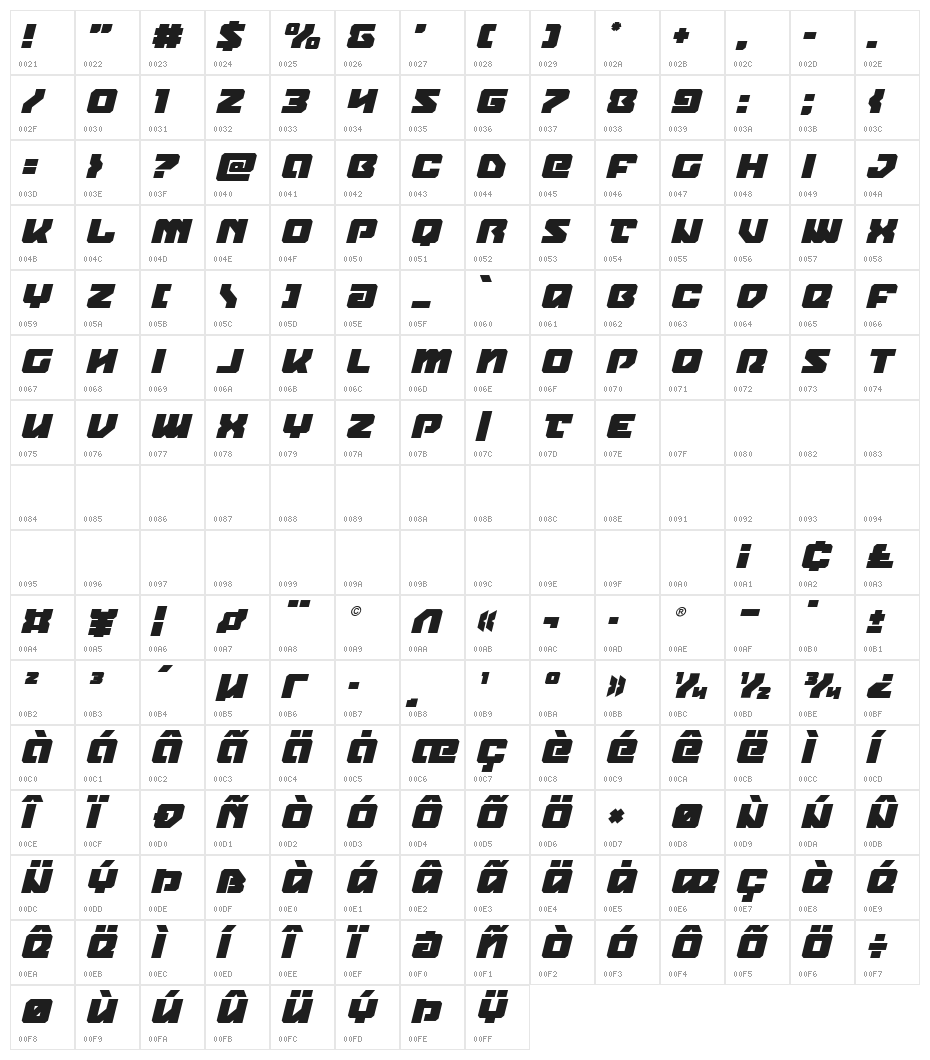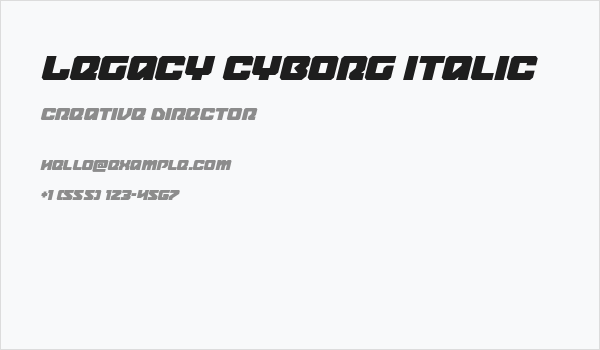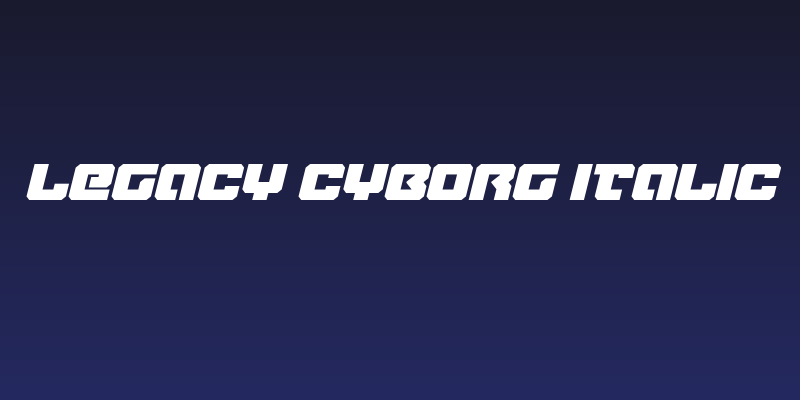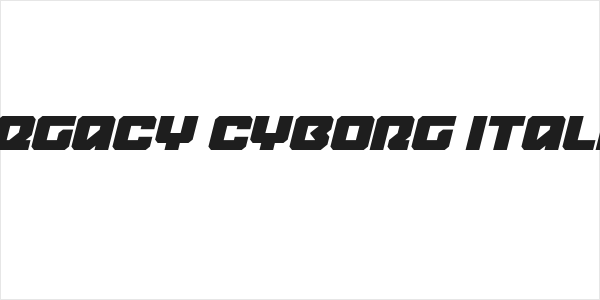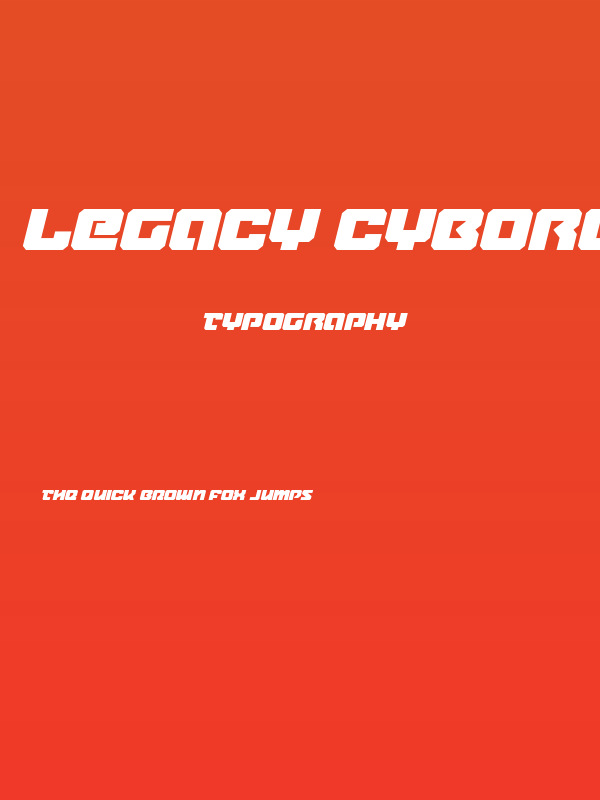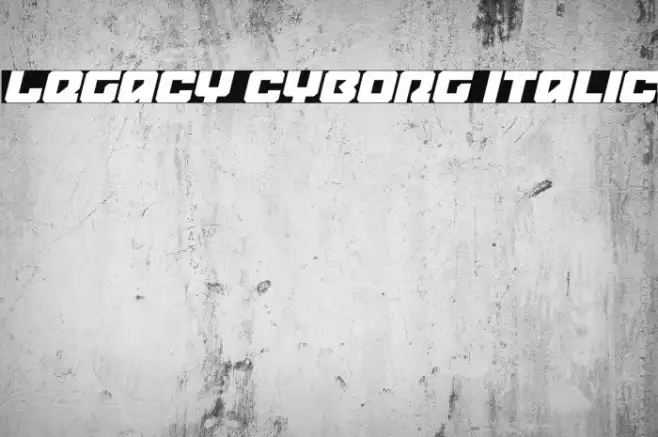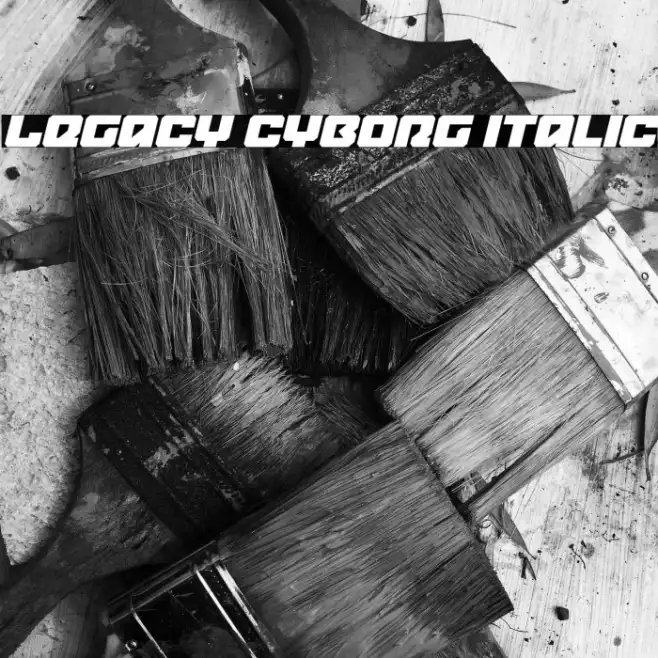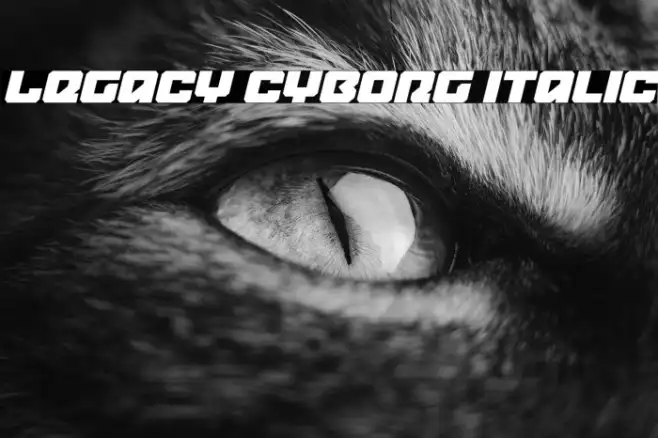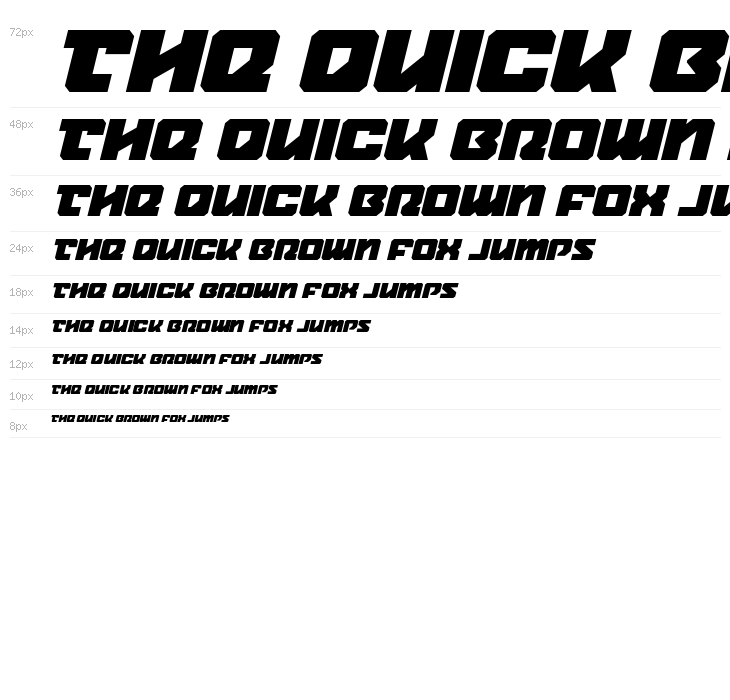
Legacy Cyborg Italic Font
Legacy Cyborg Italic Description
This font features a futuristic, angular design with a distinct italic slant, giving it a dynamic and forward-moving appearance. The characters are bold and geometric, with sharp edges and a consistent stroke width that conveys a sense of strength and modernity. The uppercase and lowercase letters maintain a uniform style, while the numbers and special characters integrate seamlessly into the overall design. The font's boldness and unique style make it stand out, suitable for projects that require a strong visual impact.
| Overall Style | Futuristic, Modern |
| Proposed Projects | Ideal for sci-fi themed designs, video game titles, tech branding, and futuristic posters. |